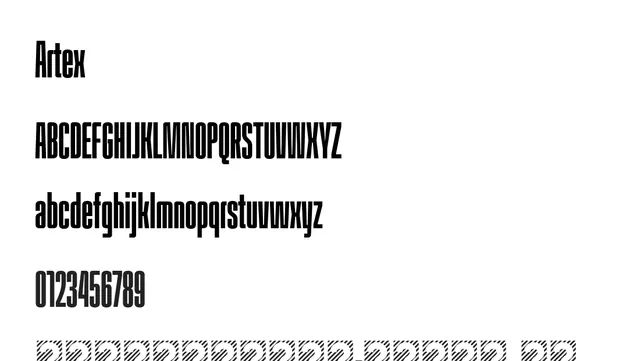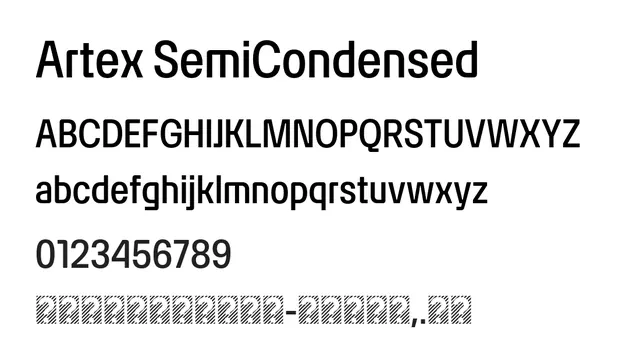
A bold geometric grotesque sans-serif with tight spacing and large x-height, delivering maximum visual impact for headlines and editorial design.
Designed for bold headline and display use where impact and contemporary character are priorities. The tight letter-spacing and geometric construction make it ideal for poster design and editorial headlines but unsuitable for body text.
Team with Artex SemiExtended or a traditional serif for body copy to create visual contrast and ensure readability at smaller sizes.